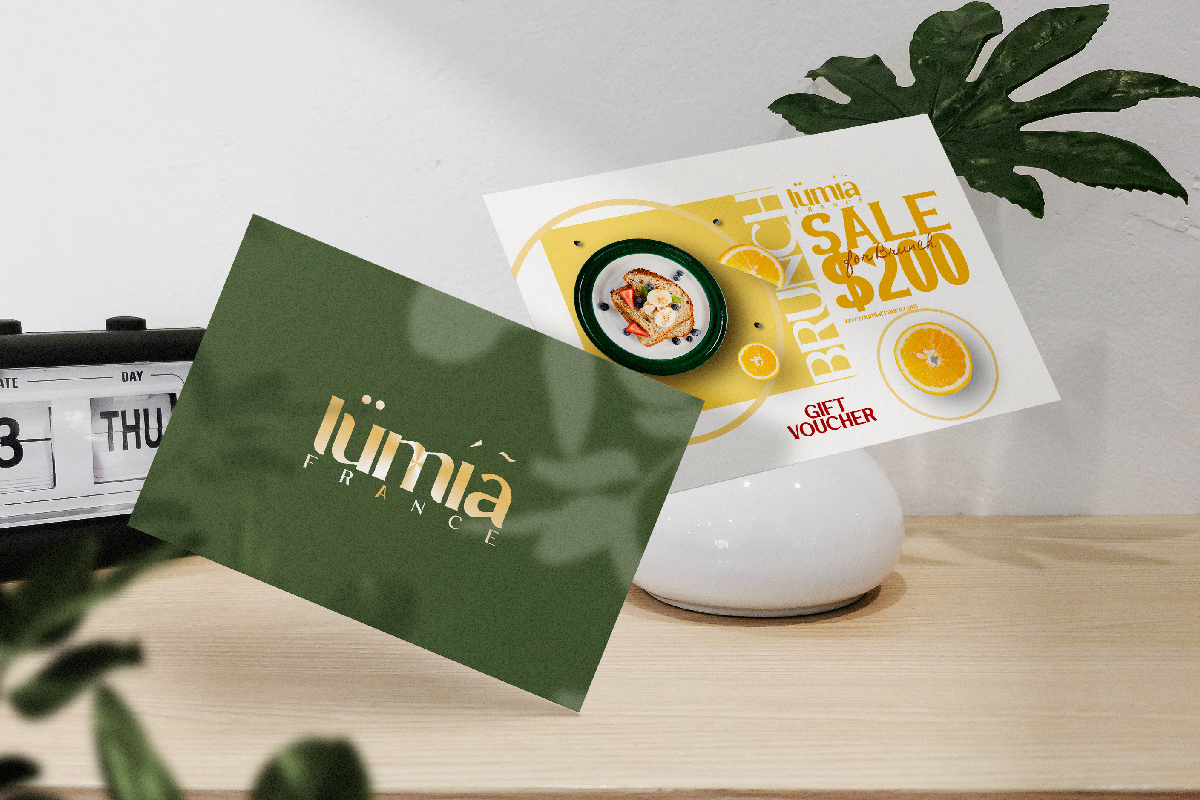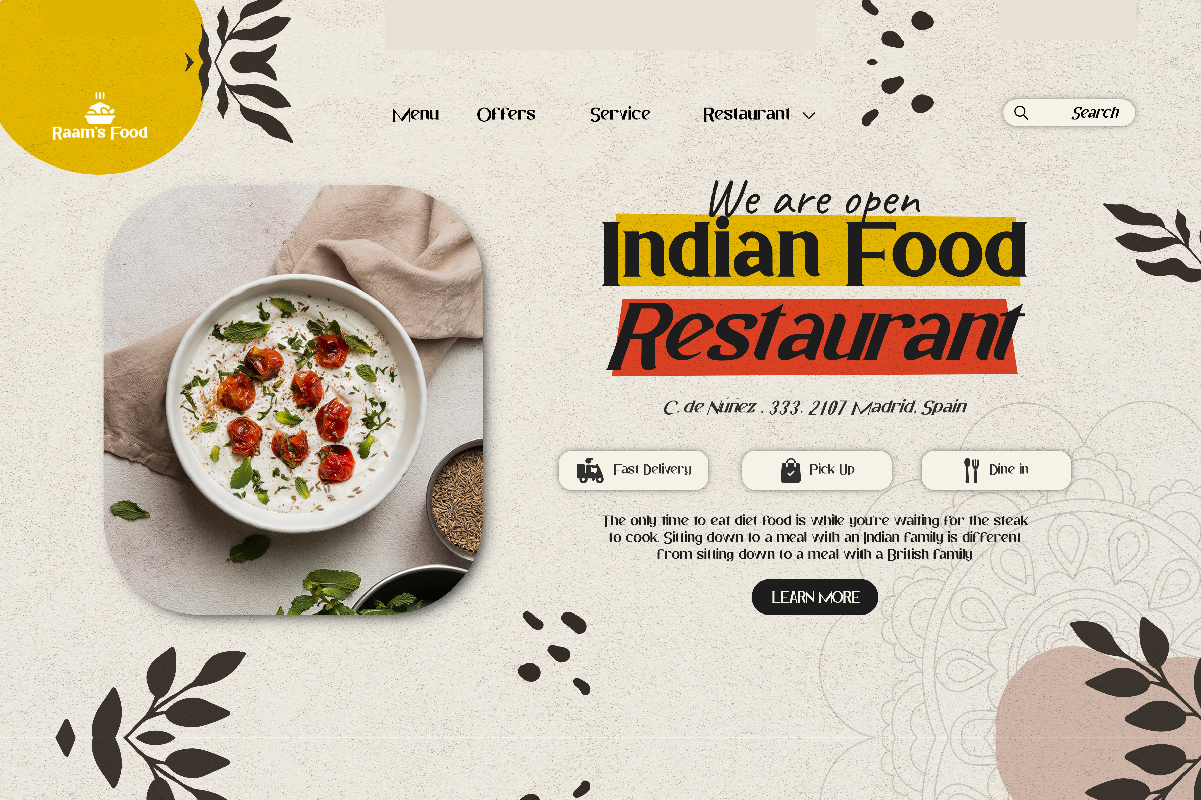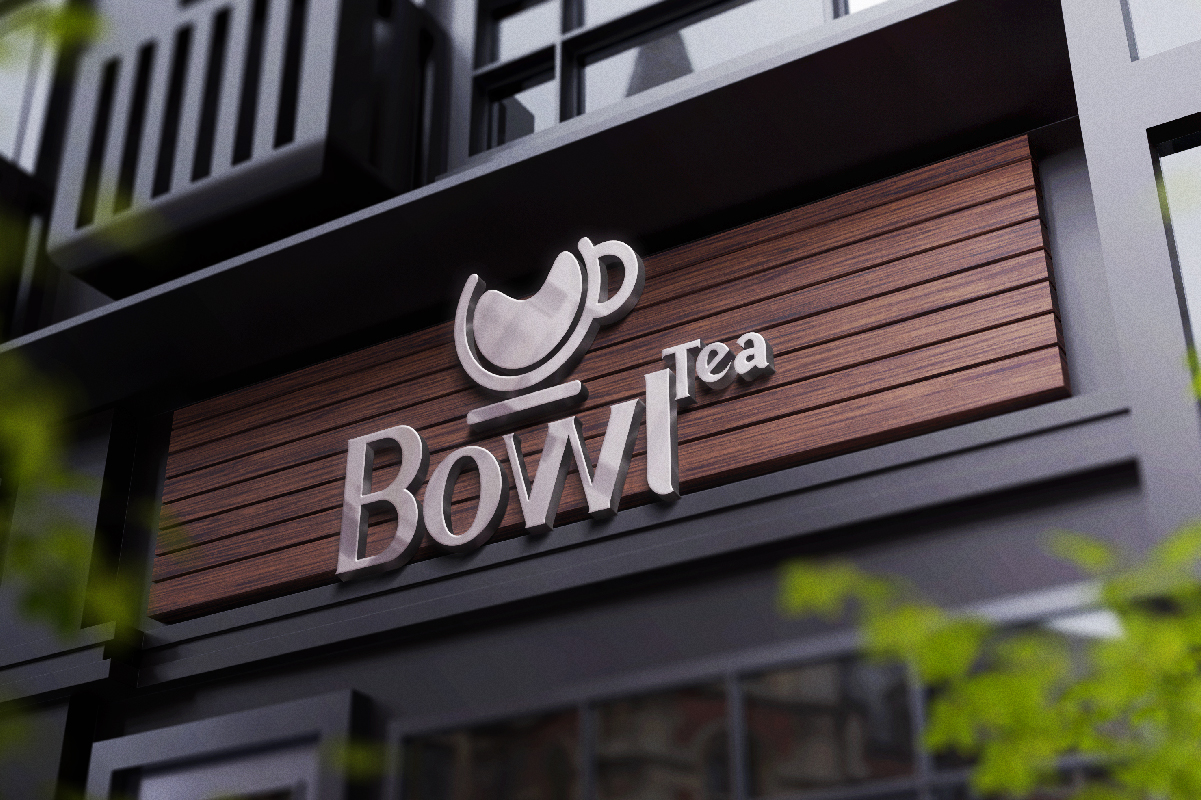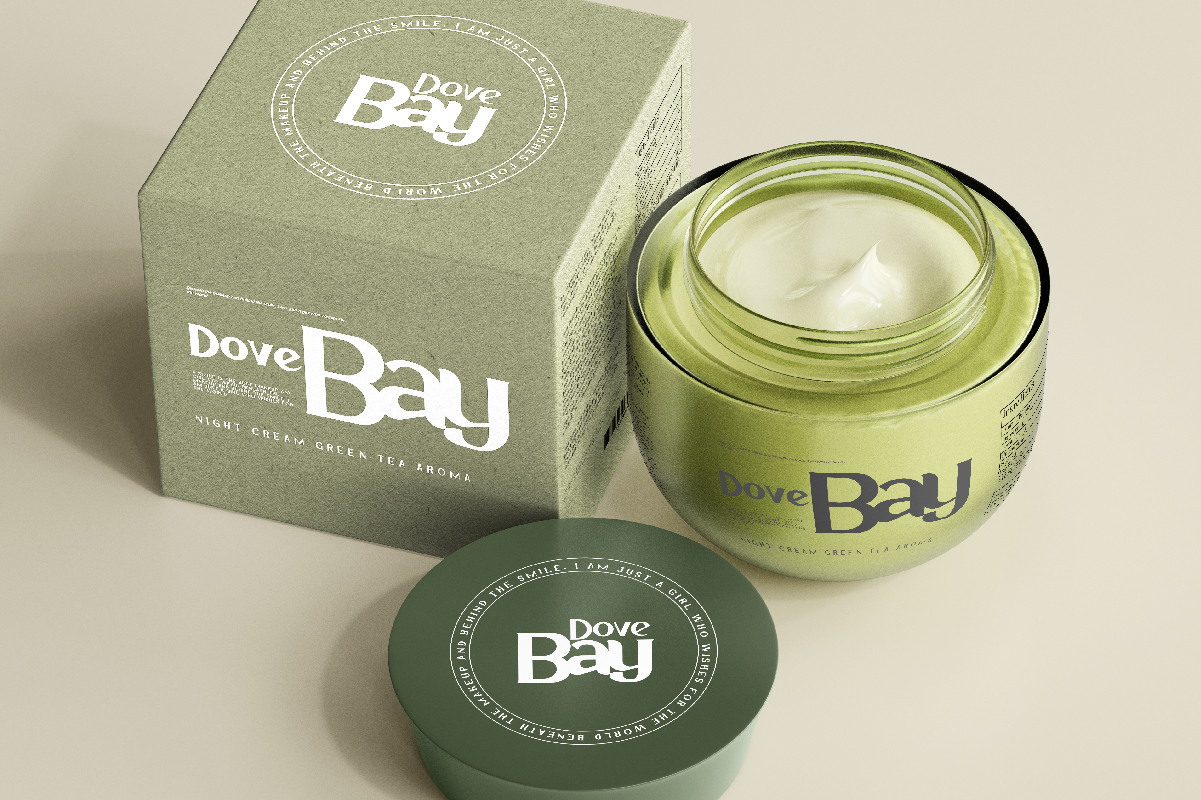
Next Person Serif Font
This is a stylish serif font with six different styles, namely Regular, Italic, Bold, Light, Light Italic, and Semi Bold. It will be perfect for many industries such as café, fashion, florist, interior design, real estate, restaurant, publishing, etc
Next Person Font includes a full set of cool Uppercase and Lowercase Letters, Numerals, and large range of punctuation. This font is perfect for projects such as business card, company sign, creating logo, label, product packaging, watermark, wrapping paper design, etc.